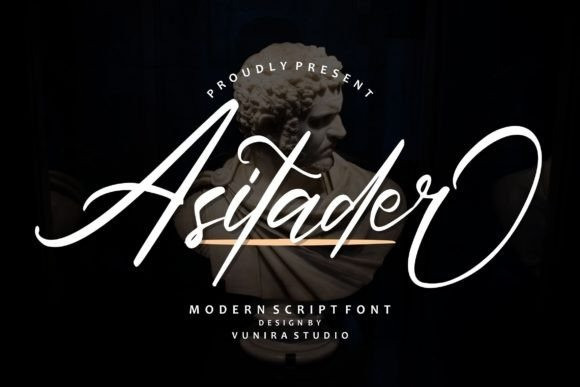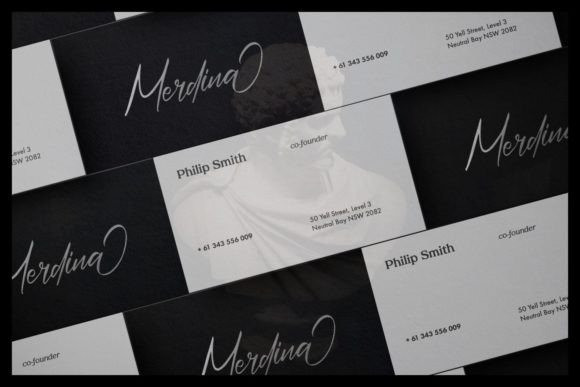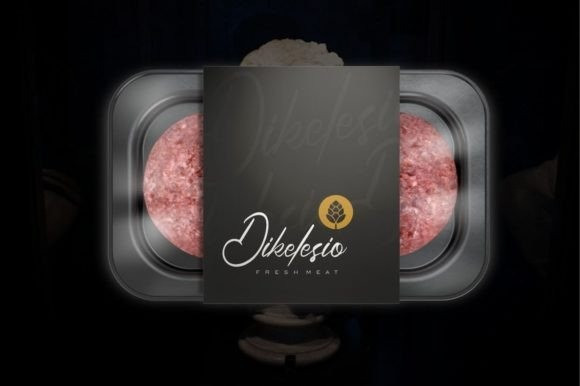
Asitader Font
Asitader is an elegant script font with a contemporary atmosphere and impeccable form, inspired by a timeless classic calligraphy. Not too thin and not too thick, balanced and varied, this font was designed to enhance the beauty of your projects.